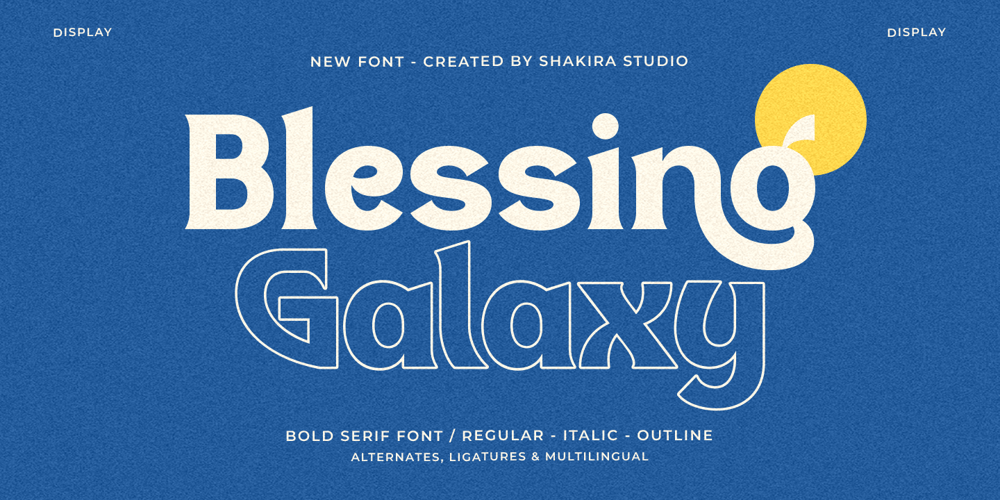
Blessing Galaxy Font Family was designed by Idhham Cholid Rikzano Yahya and published by Shakira Studio. Blessing Galaxy contains 3 styles and family package options. “Introducing ‘Blessing Galaxy’, a bold and vibrant modern serif display font that marries elegance with innovation. Designed by the visionary minds at Shakira Studio, this font collection includes Regular, Italic, and Outline variants, each crafted to offer distinct visual narratives. With a rich palette of alternates and ligatures, ‘Blessing Galaxy’ ensures that every creation is as unique as the designer behind it. This typeface is not just multilingual but multicultural, effortlessly adapting to a myriad of design contexts. Whether you’re crafting a striking headline, a sophisticated logo, or an inviting editorial layout, ‘Blessing Galaxy’ brings a touch of stellar beauty to all your projects.”Here’s what you get: Regular, Italic & Outline All Multilingual symbol Opentype features ( ligature, alternate ) Accessible in the Adobe Illustrator, Adobe Photoshop, Adobe InDesign, even work on Microsoft Word. PUA Encoded Characters – Fully accessible without additional design software. Multilingual character supports : (Afrikaans, Albanian, Catalan, Croatian, Czech, Danish, Dutch, English, Estonian, Finnish, French, German, Hungarian, Icelandic, Italian, Lithuanian, Maltese, Norwegian, Polish, Portuguese, Slovenian, Spanish, Swedish, Turkish, Zulu)Follow my shop for upcoming updates, and for more of my work, If you need a custom license or have questions please visit our website: www.shakirastudio.comThank you!Shakira Studio